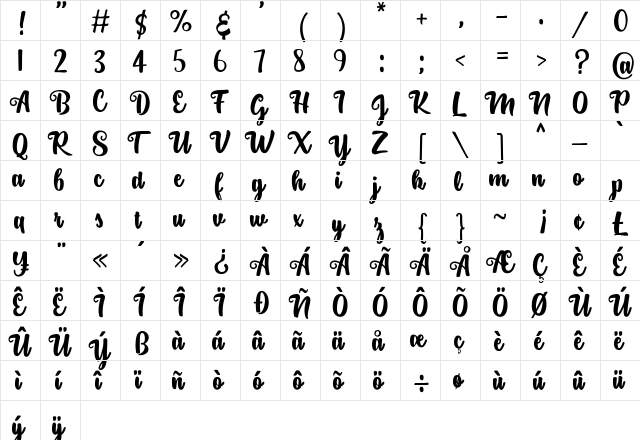
Sinta Script Regular
| Foundry | Aqeela Studio |
| Designer | Aqeela Studio |
Design Context for Sinta Script Typeface
Sinta Script brings a calligraphic fluidity to the page — its connecting strokes and expressive curves give it an unmistakably human quality.